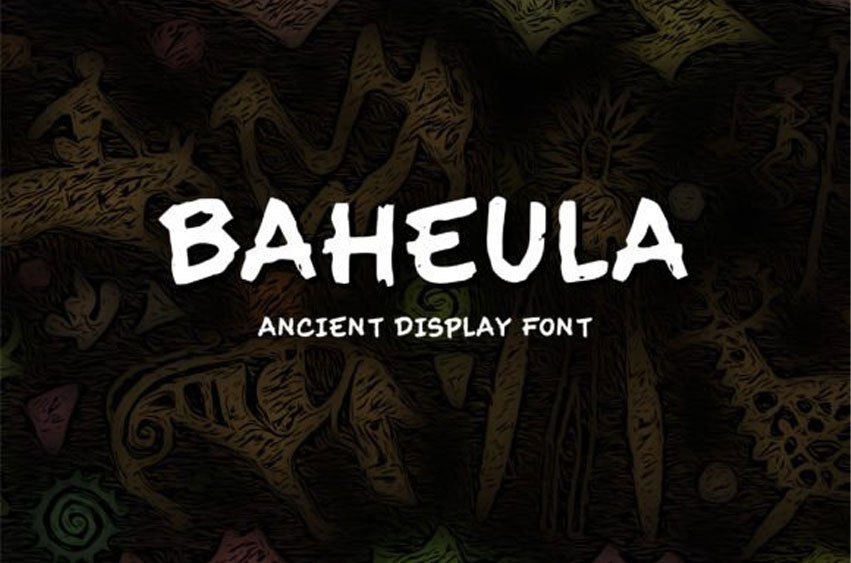
Baheula Font
Baheula Font is a display font that has old and ancient looks.
This font is perfect for many projects, such as music covers, movie titles, book titles, magazines, posters, advertisements, social media content, logos, and many more.